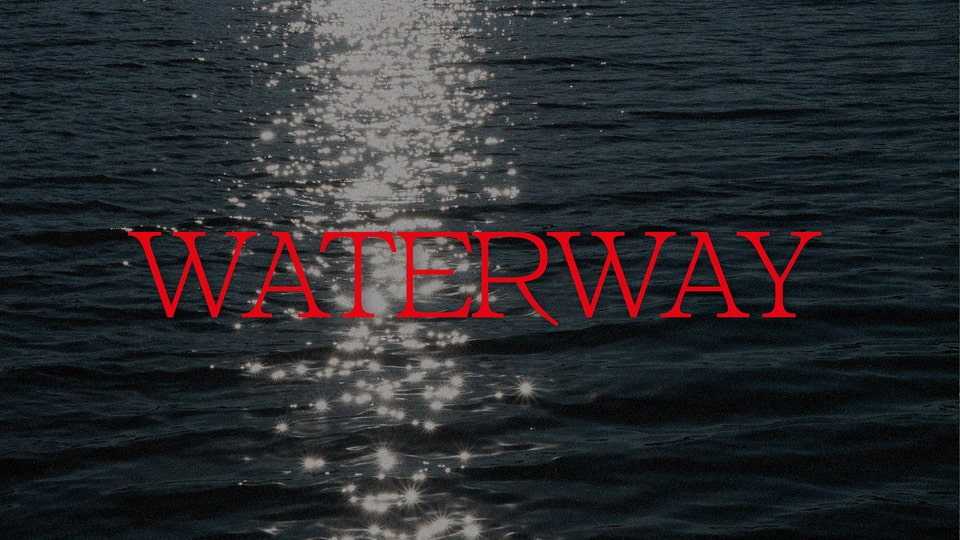
Download Waterway font, a modern serif typeface with refined letterforms and sharp, striking serifs. It combines contemporary style with a touch of elegance.
Designer: Eduard Chernov